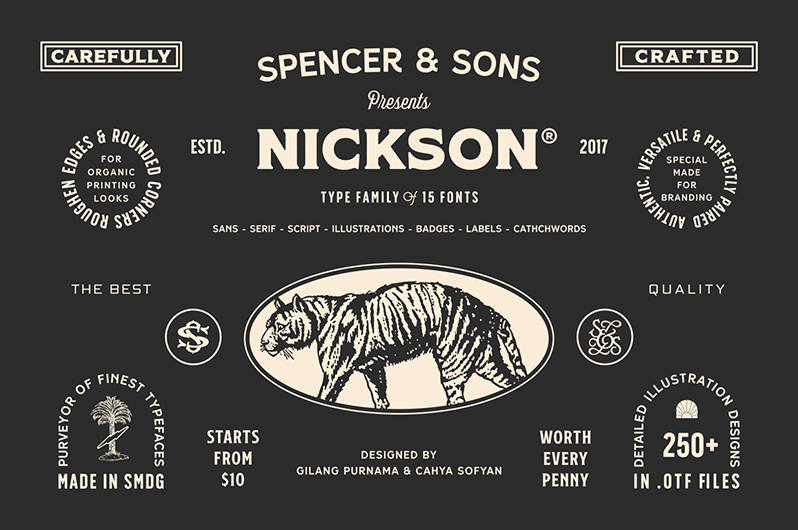
Preview and download S&S Nickson One Font. Created by Gilang Purnama Jaya in Fancy Retro styles with Demo license.
Nickson Font Family includes 15 fonts that have different styles from each other but at the same time perfectly paired when used together. Nickson offers seven display fonts, one script font, 250+ illustrations (using new techniques so you will not lose every detail), badges, labels, and catchwords. Nickson Font Family Collection was designed carefully to create elegant typographic works. It would be a perfect choice to design posters, affiches, logos, t-shirt and magazine prints, eye-pleasing typographic designs and more. what you get (commercial version) : S&S Nickson No.1 S&S Nickson No.2 S&S Nickson No.3 S&S Nickson No.4 S&S Nickson No.5 S&S Nickson No.6 S&S Nickson No.7 S&S Nickson No.8 S&S Nickson Extras 01 S&S Nickson Extras 02 S&S Nickson Extras 03 S&S Nickson Extras 04 S&S Nickson Extras 05 S&S Badges & Labels S&S Catchwords | Uppercase & Lowercase | Numerals & Punctuation | Supports 75+ Latin based languages | OTF file | UPDATE : Before You buy, now you can download sample illustrations from set 1-5 here : https://goo.gl/qo1LWF *all the designs contained in the poster using nickson font family Suggestion : This font is a terrific toolbox for display purposes If you require an upgraded license please contact me. Upgraded licenses are required for web fonts, apps, ebooks, broadcast television, commercial exhibition, film, gaming, software embedding, customized print on demand products, etc. buy license here : https://crmrkt.com/V6X9O0 |